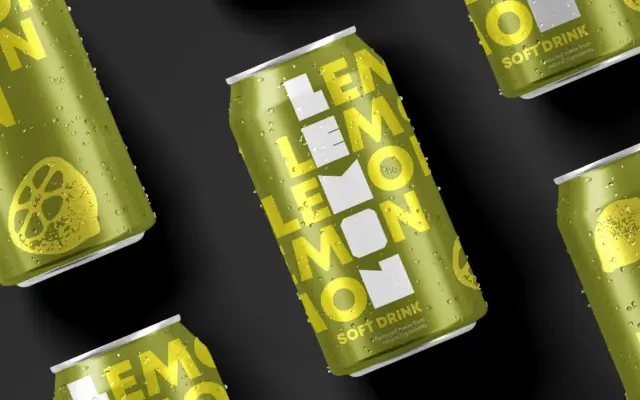
The Ultimate Bundle
Fontfabric · Svet Simov · 2019
A curated bundle of 97 display styles drawn from Fontfabric's back catalogue, sold as a single discounted package for logo and headline work.
Spanning over 40 named typefaces, the collection gathers geometric, stencil, outline, inline and decorative styles produced during Fontfabric's first era of development, many by founder Svet Simov. Weight coverage runs from Thin to Black across individual families, and OpenType feature support varies by face. The bundle is pitched at branding, packaging and editorial projects where visual range and price per style are the primary concerns.
A curated bundle of 97 display font styles spanning geometric, stencil, outline, inline, decorative and expressive designs; no single classification applies, but display is the dominant intent across all included faces.